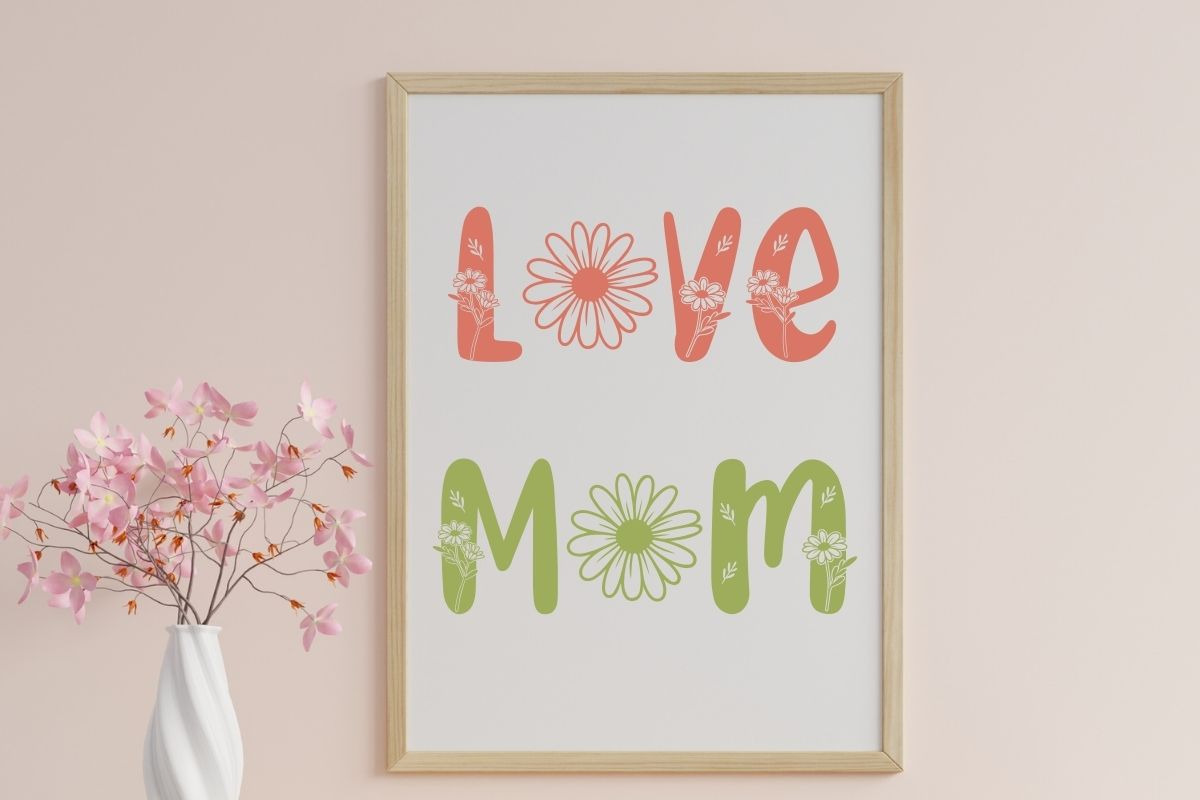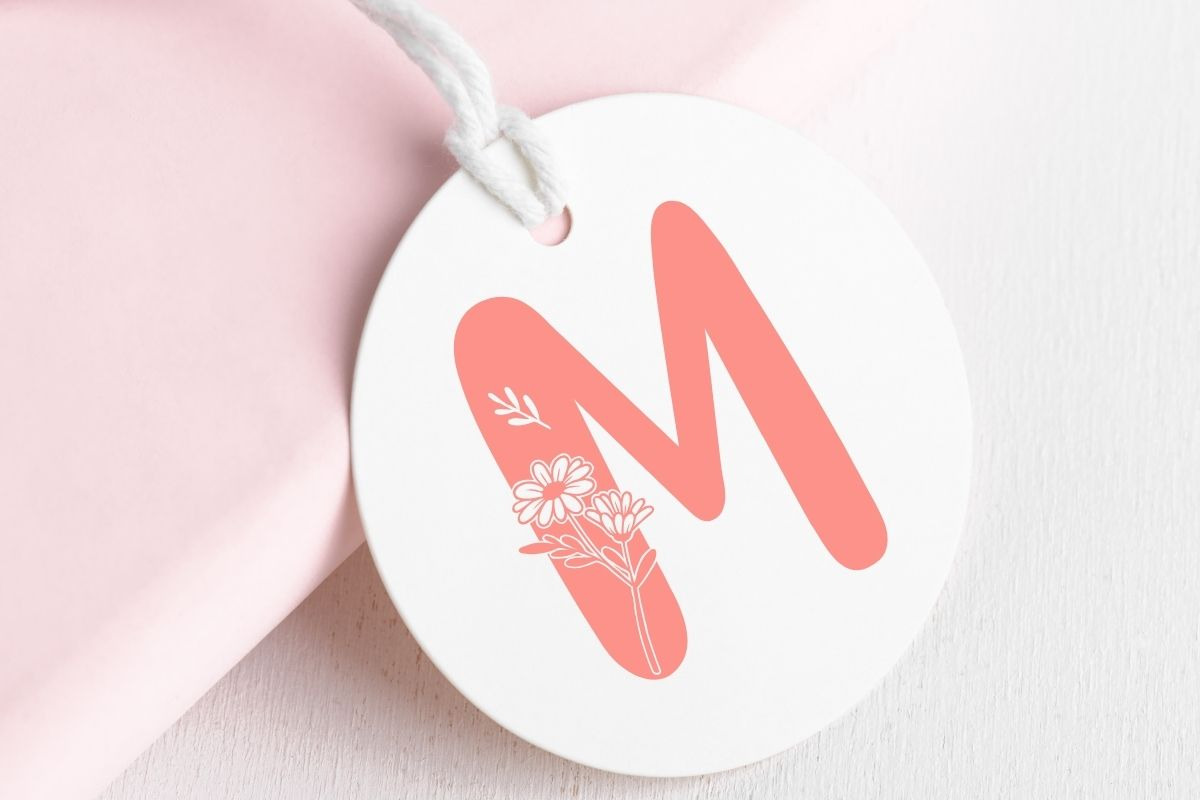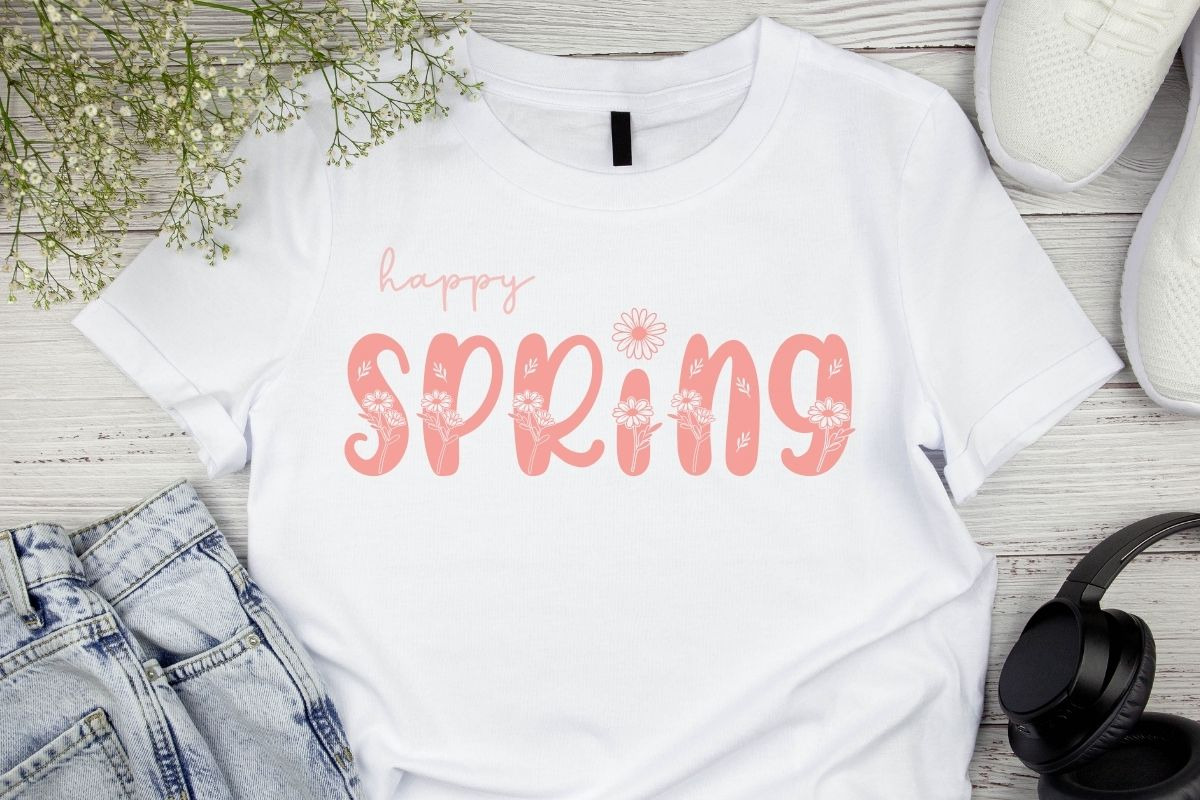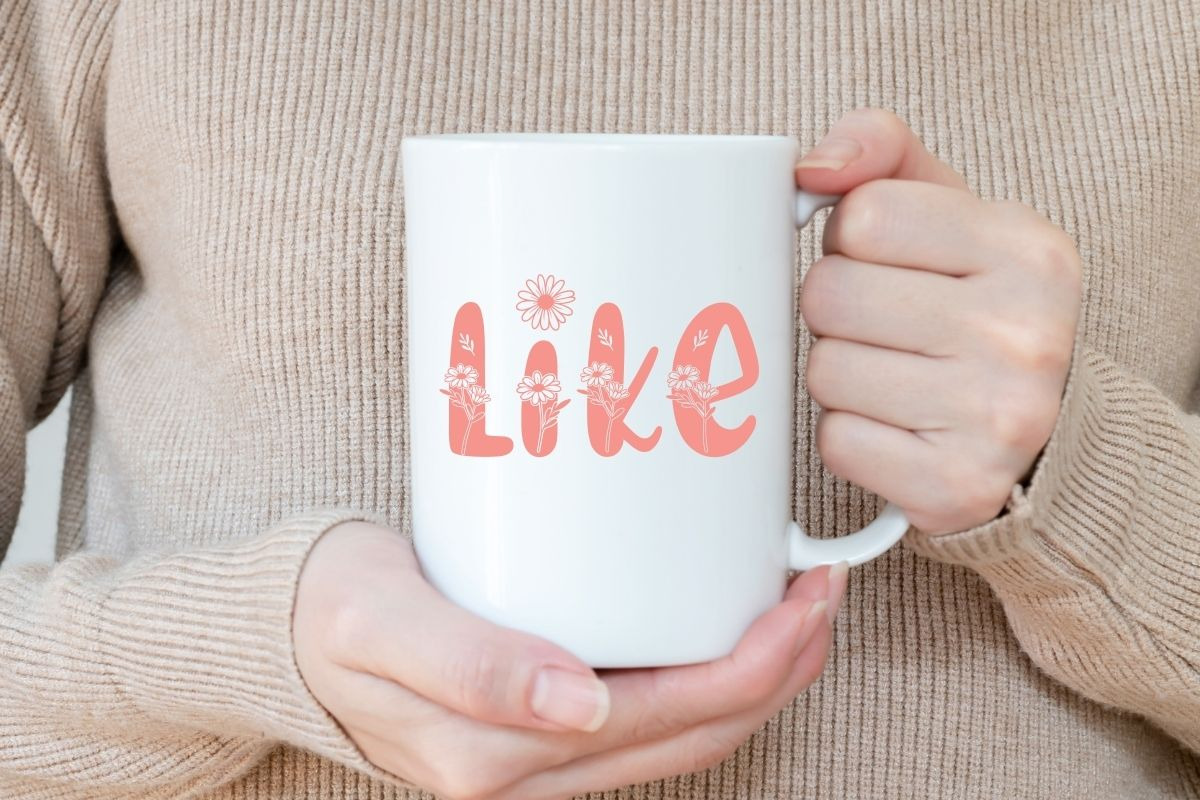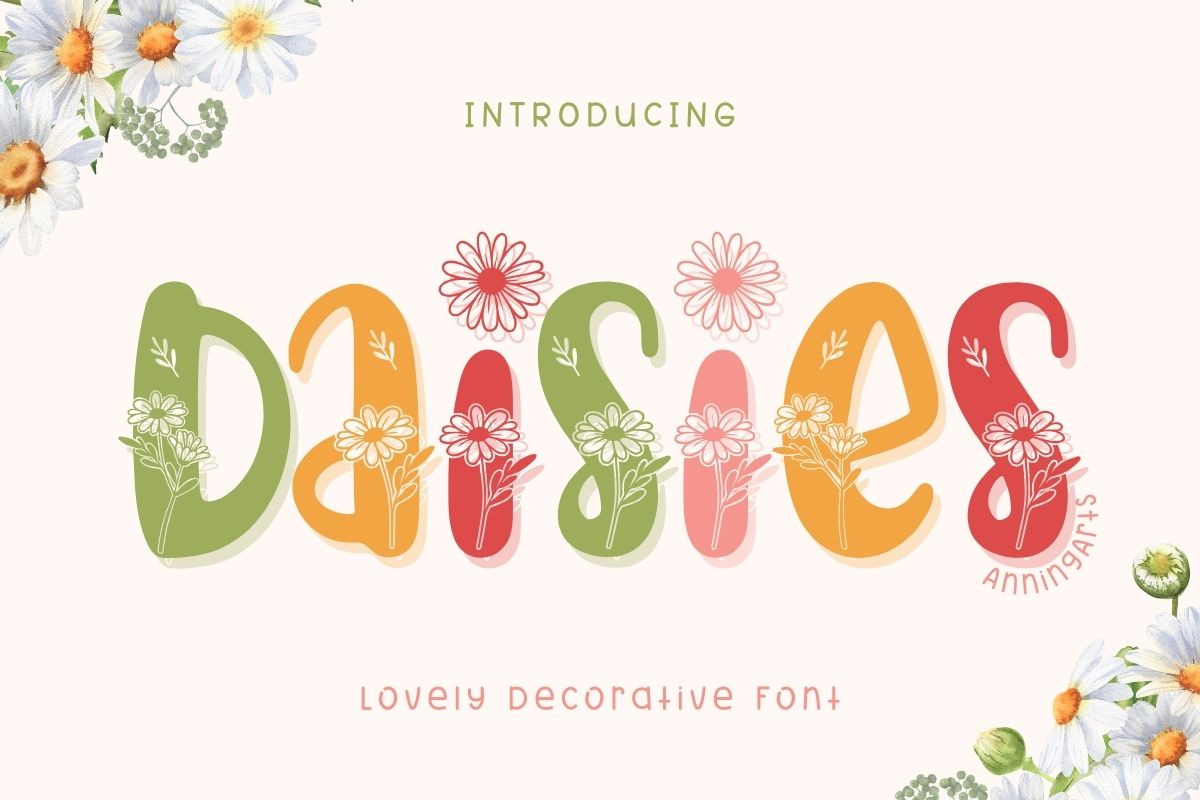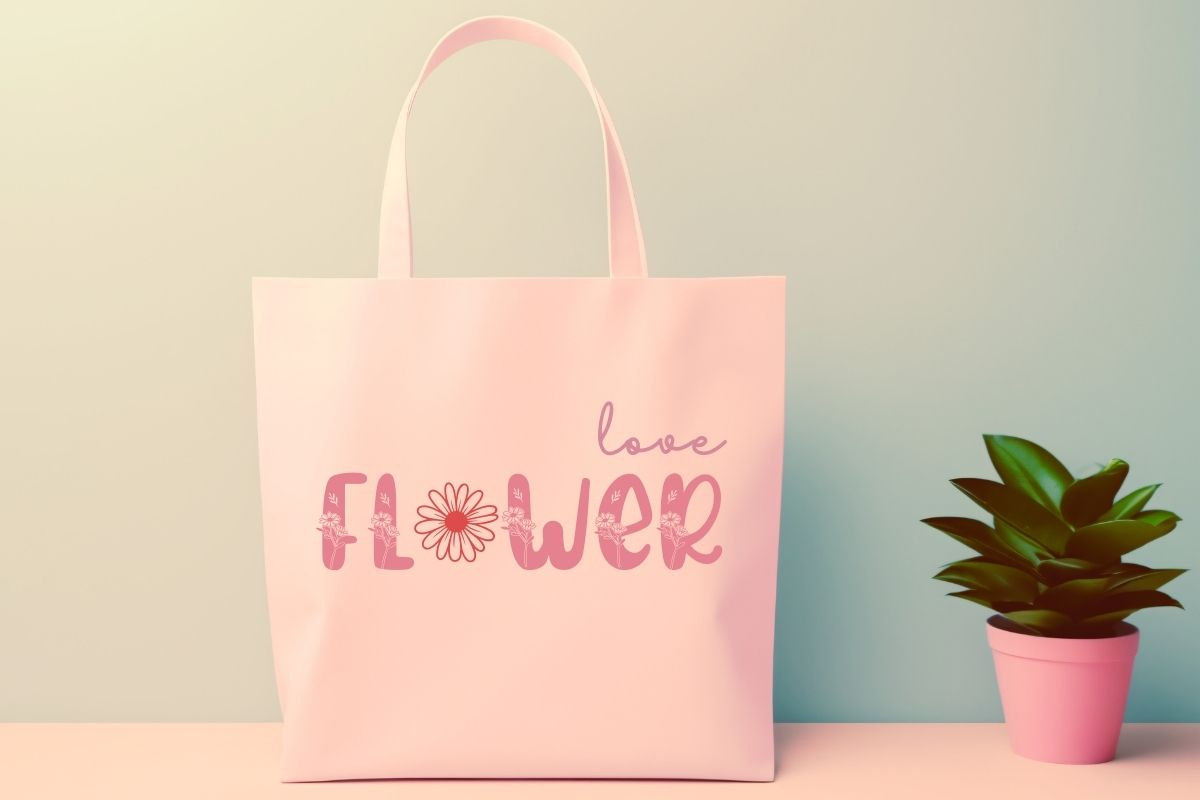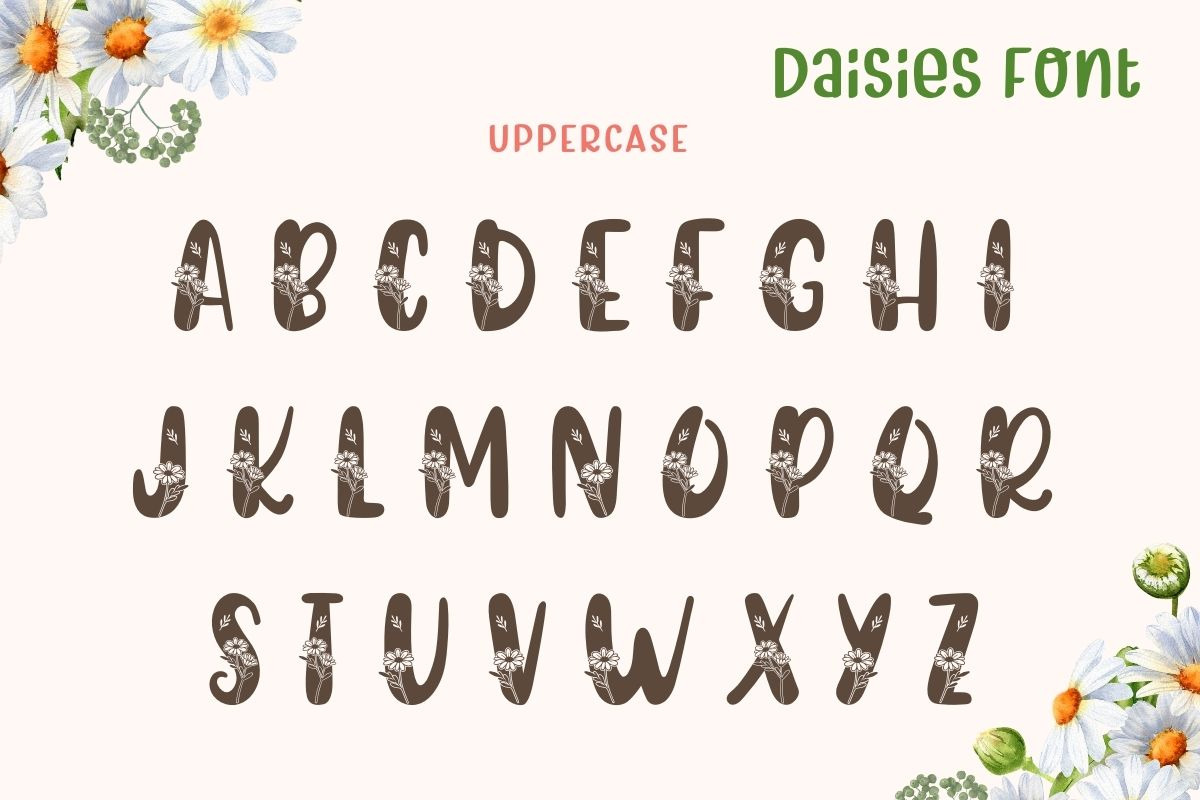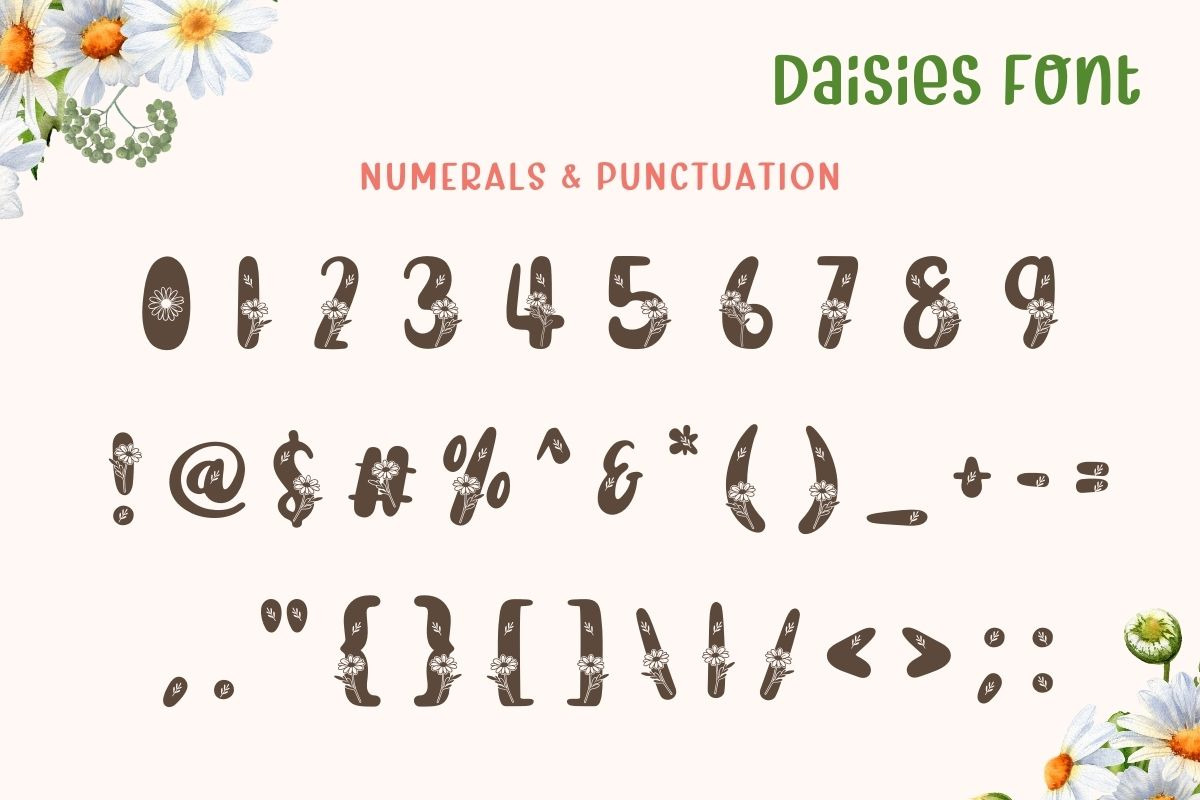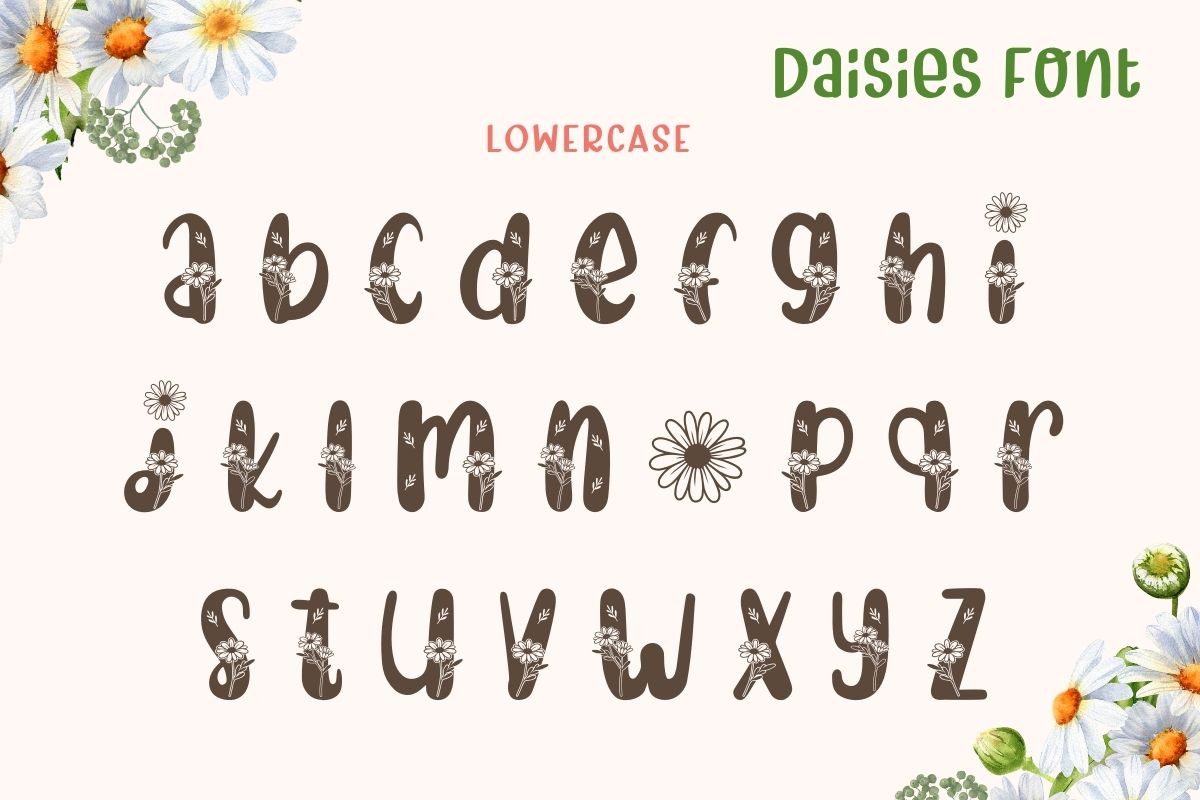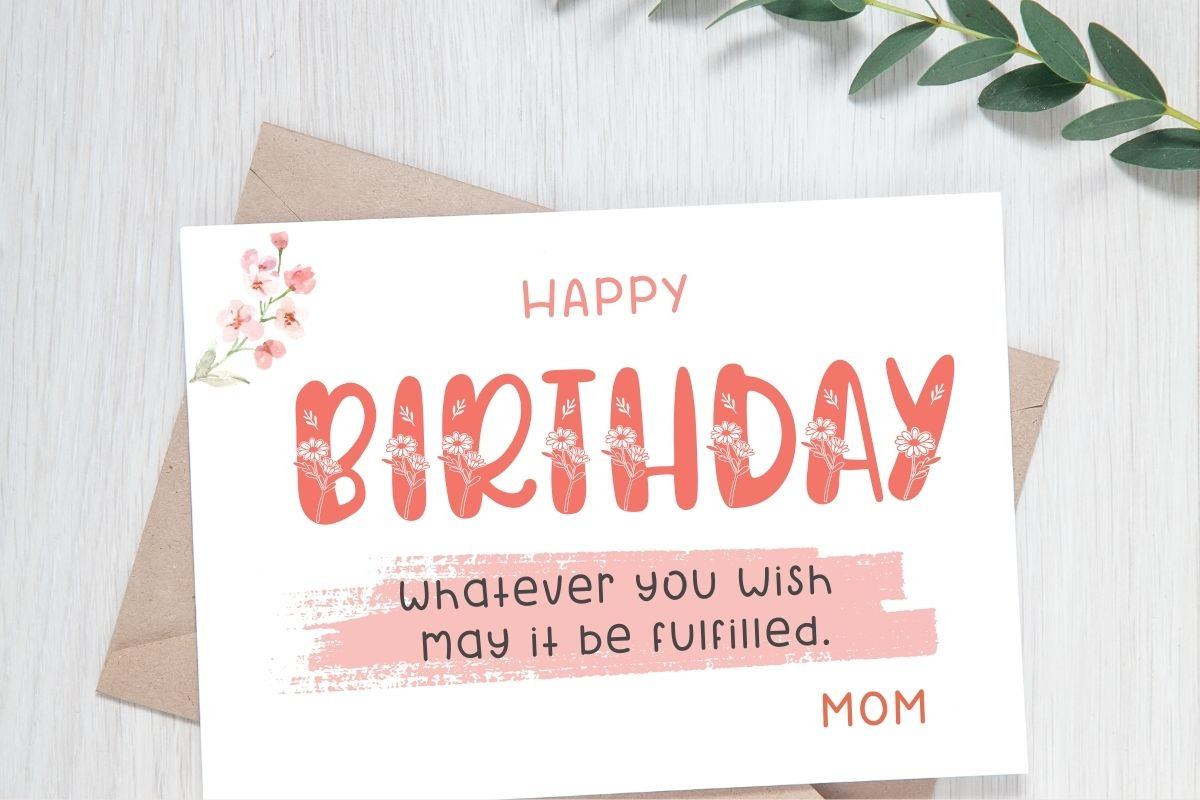
Daisies - Decorative Font
Daisies font is a delightful and vibrant typeface decorated with charming flowers in various colors. This font is perfect for projects that require beauty and a touch of nature, such as invitation cards, poster designs, or product packaging that needs a boost of cheerfulness and cuteness. The Daisies font will add charm and make your text stand out with its unique and captivating style.